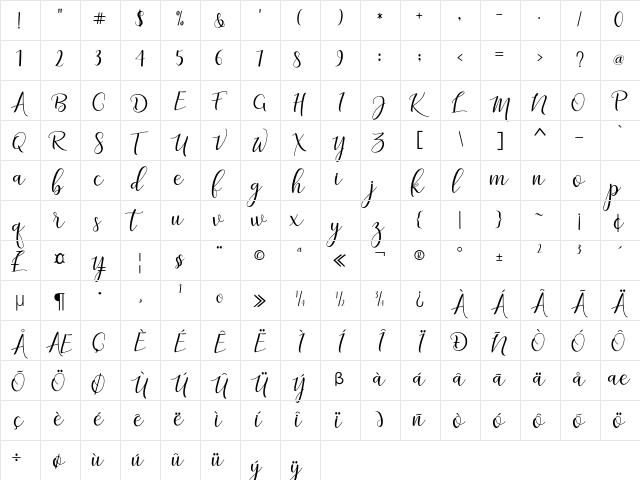
adaline script Regular
| Foundry | mrletters_Muhammad Rizal |
| Designer | mrletters_Muhammad Rizal |
Design Context for adaline script Typeface
adaline script brings a calligraphic fluidity to the page — its connecting strokes and expressive curves give it an unmistakably human quality.
Font Pairing: Combine adaline script with a simple geometric sans for maximum contrast — the tension between flowing curves and clean structure is a classic typographic pairing.
Pro Tip: Use adaline script for short runs of text — names, titles, or taglines. Extended body copy in script faces tires the eye quickly.